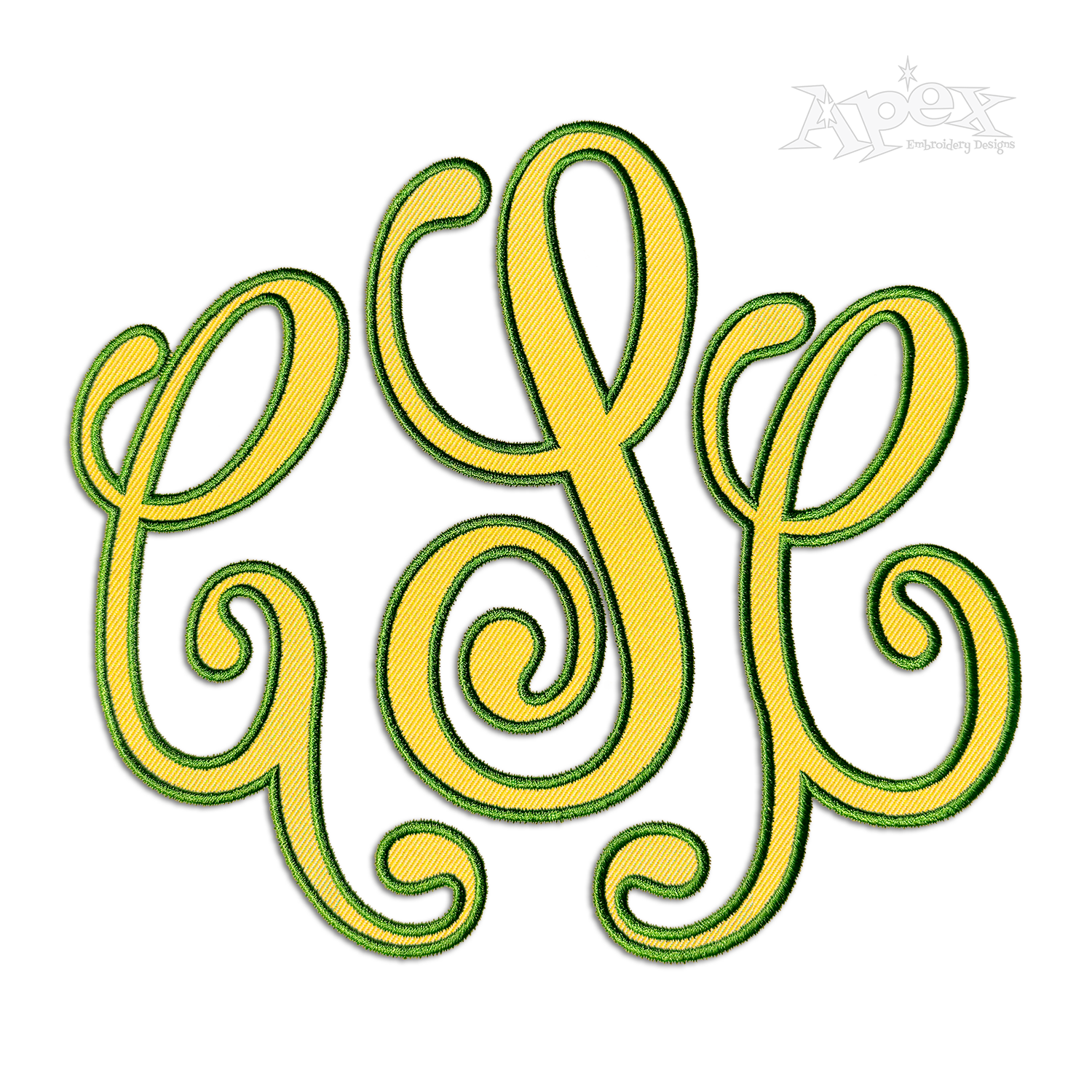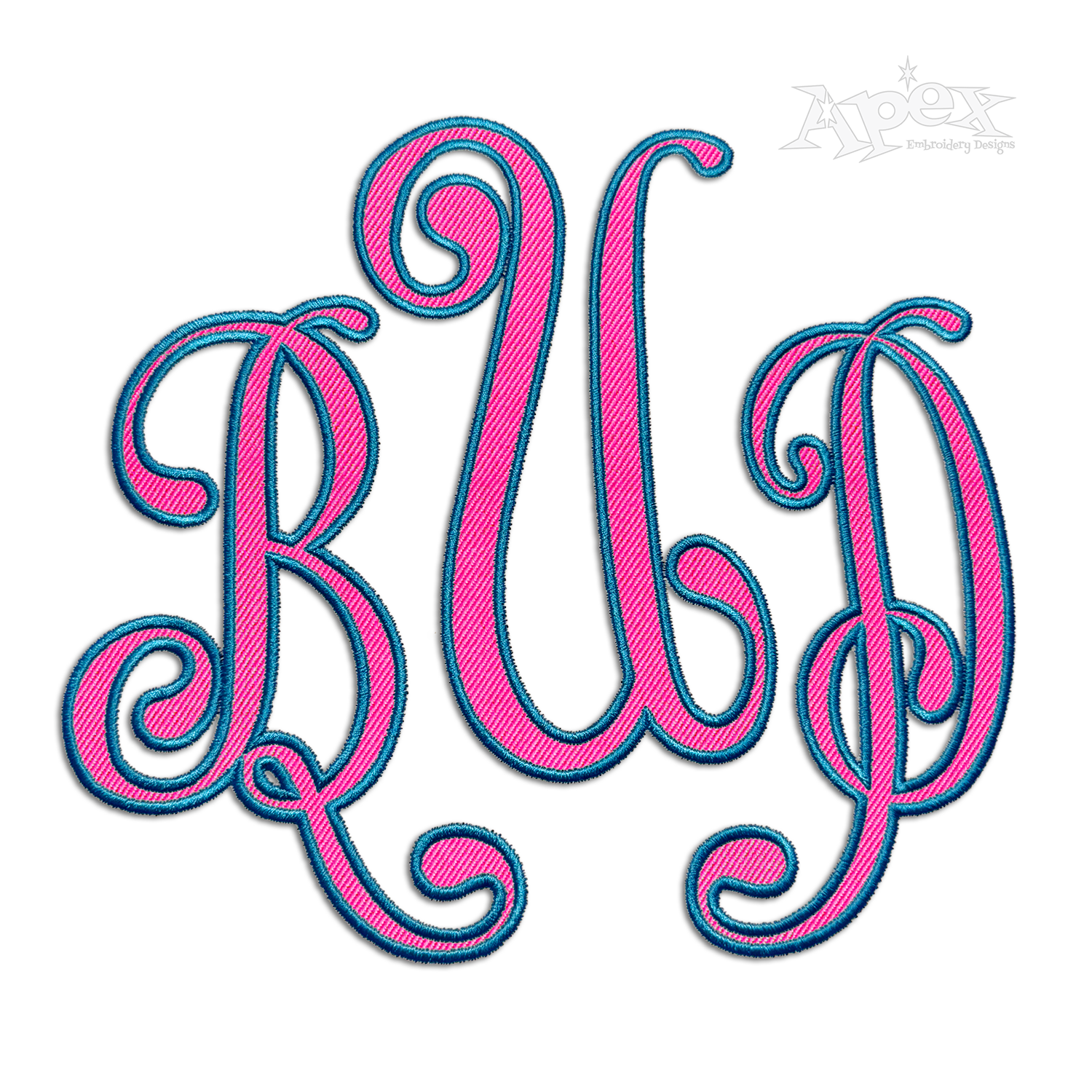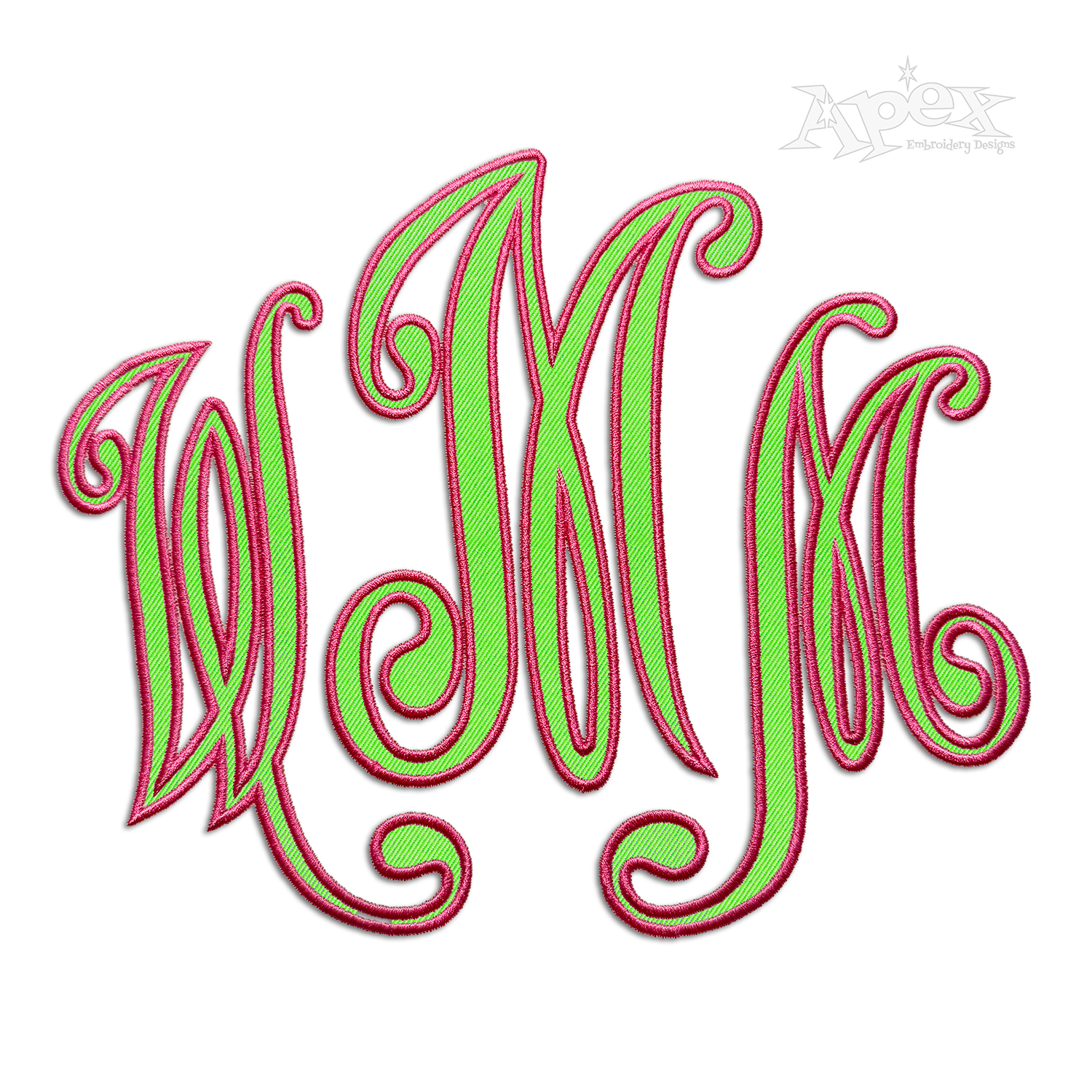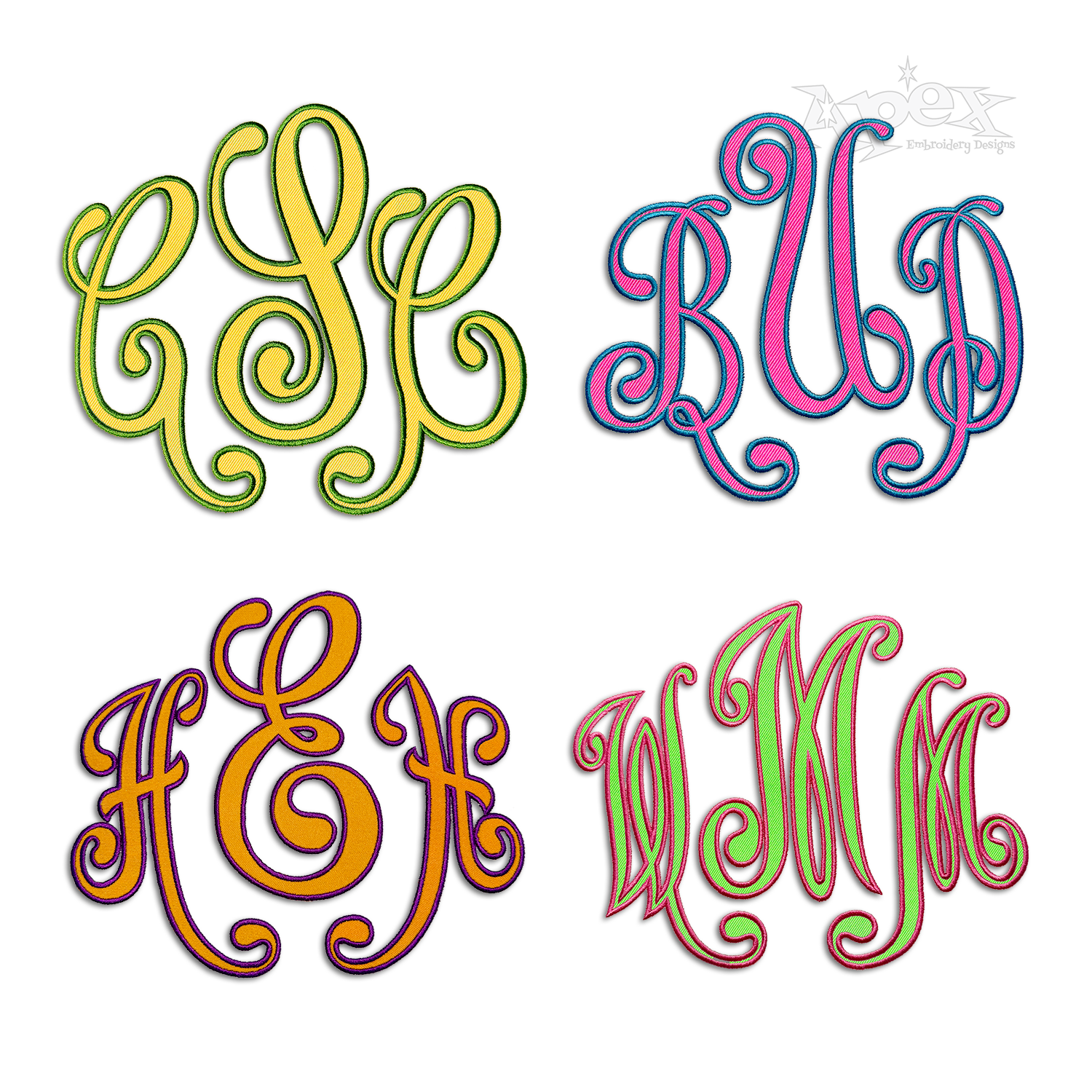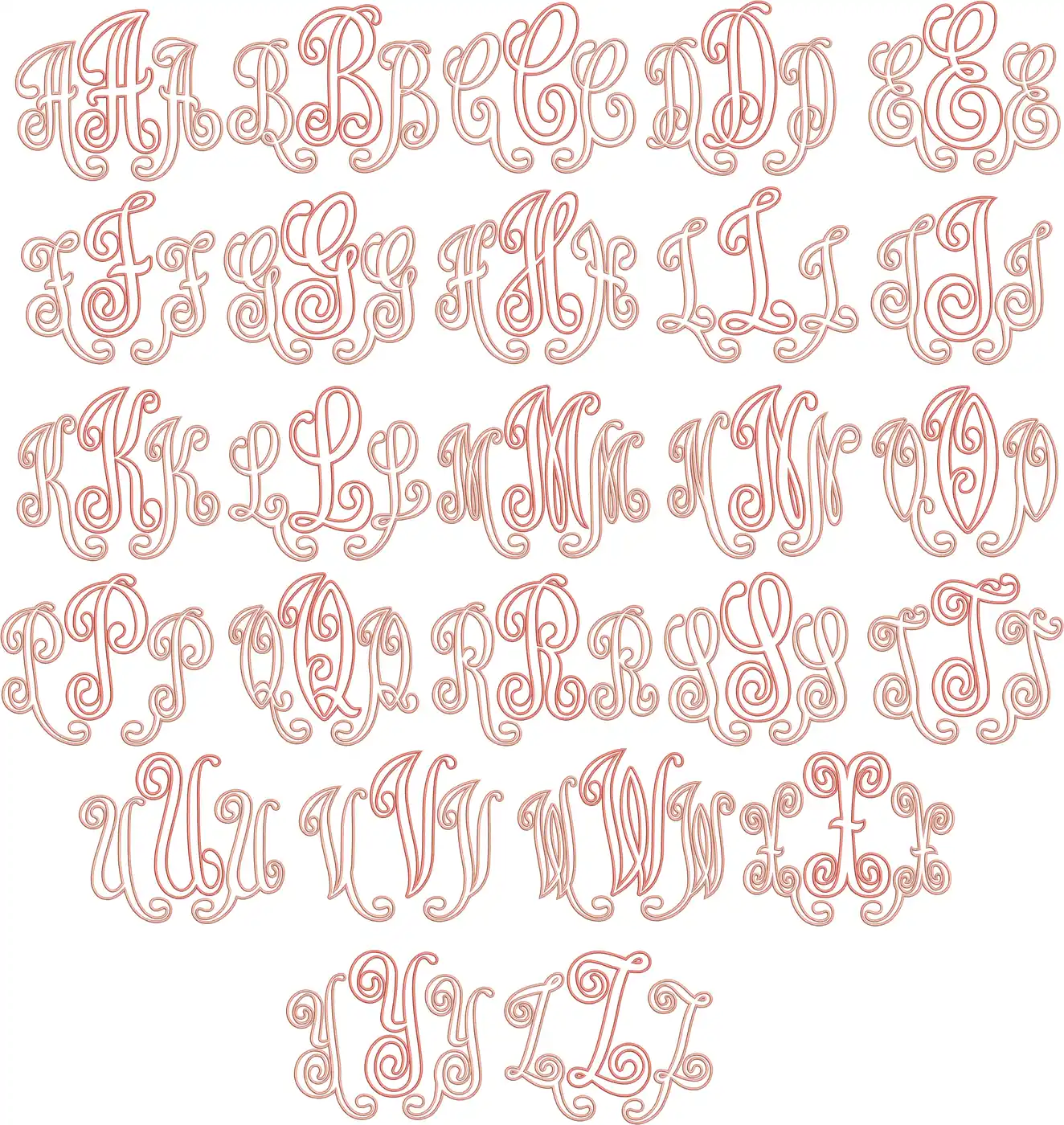
Alsace Monogram Appliqué Embroidery Font
Create French style personalized gifts and home décor with Alsace . Alsace Appliqué is a special place in France this is an old world Monogram Embroidery Font. Created in Alsace after shopping Christmas markets. Monogram Featuring a classic with Europe Regal stylish 3-color embroidery monogram set is perfect for customizing hats, linens, towels, baby gifts, tote bags, and more.
This premium Alsace Appliqué embroidery font collection includes complete size sets with uppercase monogram letters designed for creating stunning 3-letter monograms. Each font comes professionally digitized for smooth stitching and excellent embroidery results. Apex has digitized machine embroidery fonts for over 25 years.